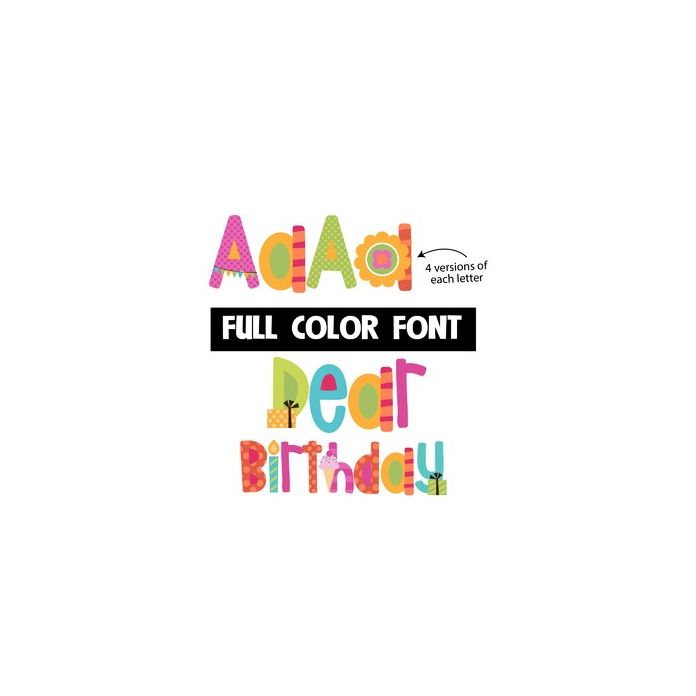
This full-color font features a bright color palette with a birthday theme throughout. There is a secondary upper and lowercase that you can access through Silhouette's glyph map.